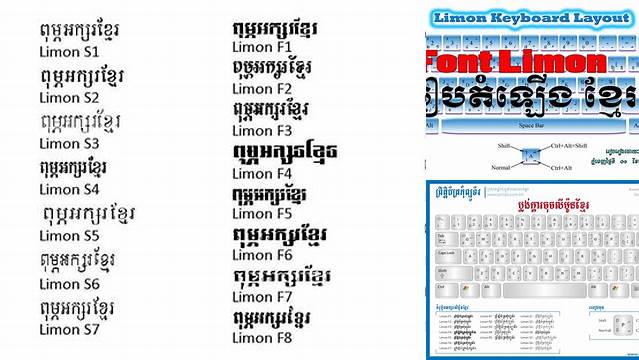
Hey guys! Looking to spice up your Khmer writing with a cool new font? You've landed in the right spot. This guide is all about the Khmer Font Limon F2, a super popular choice for its clean and modern look. We'll dive deep into how you can snag a free download, install it, and use it like a pro. Whether you're designing a poster, creating a document, or just want a fresh font for your personal projects, Limon F2 is a fantastic option. Let's get started!
1. What is Khmer Font Limon F2?
So, what exactly is Khmer Font Limon F2? Well, it's a beautifully designed font that specifically caters to the Khmer script, the writing system used for the Khmer language spoken in Cambodia. Unlike some fonts that can look clunky or outdated, Limon F2 boasts a modern and elegant aesthetic. This makes it incredibly versatile, suitable for everything from formal documents to eye-catching graphic designs. Its clean lines and balanced letterforms ensure readability, making it a go-to choice for both print and digital media. If you're working on a project that requires Khmer text, having a font like Limon F2 in your toolkit is a major win. It allows you to present your content in a professional and visually appealing way, making a great first impression on your audience. Beyond its aesthetic appeal, the font's design also takes into account the intricacies of the Khmer script, ensuring that all the complex characters are rendered accurately and beautifully. This is crucial, as using a poorly designed font can lead to misinterpretations or simply make your text look unprofessional. Think of Limon F2 as the secret weapon for your Khmer typography needs, giving your words a polished and contemporary edge. Whether you're a seasoned designer or just starting out, this font is sure to become a valuable asset in your creative endeavors. So, let's move on to figuring out where you can grab this gem for free!
12. The Future of Khmer Typography
The future of Khmer typography is bright, with exciting developments and opportunities on the horizon. As technology continues to evolve and design trends shift, Khmer fonts are adapting and innovating to meet the needs of a changing world. Khmer Font Limon F2 represents a step forward in modern Khmer typography, and we can expect to see even more innovative and visually appealing fonts emerge in the years to come. One key trend is the increasing availability of high-quality Khmer fonts for digital use. In the past, finding well-designed Khmer fonts could be challenging, but now there are more options than ever before. This allows designers to create more sophisticated and professional-looking Khmer designs. Another important development is the growing support for Khmer script in web browsers and operating systems. This ensures that Khmer text is displayed correctly and consistently across different platforms, making it easier to create websites and applications that support the Khmer language. We can also expect to see more experimentation with different styles and aesthetics in Khmer typography. Designers are pushing the boundaries of traditional Khmer font design, creating new and exciting typefaces that reflect the diversity and dynamism of Khmer culture. The use of Khmer fonts in branding and marketing is also likely to increase. As businesses and organizations recognize the importance of connecting with Khmer-speaking audiences, they will need to use Khmer fonts that are both visually appealing and culturally appropriate. In addition, the development of variable fonts, which allow for greater flexibility and customization, could have a significant impact on Khmer typography. Variable fonts enable designers to fine-tune font properties like weight, width, and slant, creating a wider range of typographic expressions. Overall, the future of Khmer typography is full of potential. By embracing new technologies and design approaches, Khmer fonts can continue to play a vital role in preserving and promoting the Khmer language and culture.